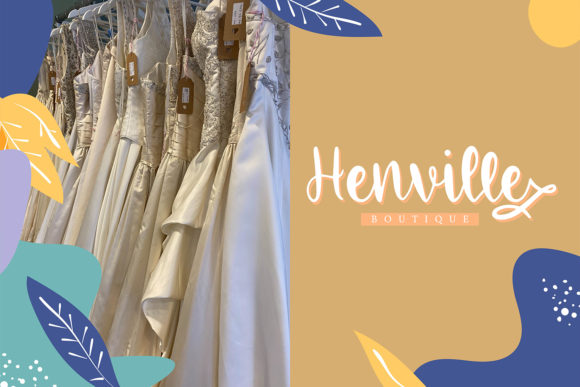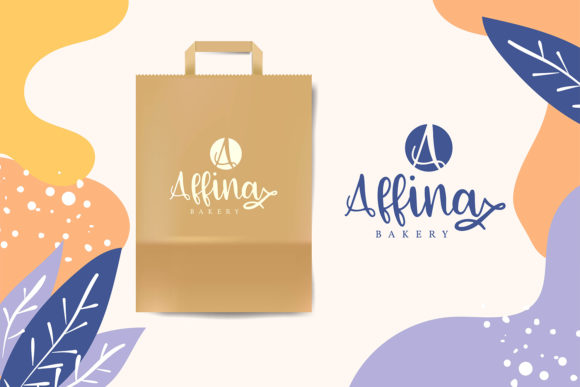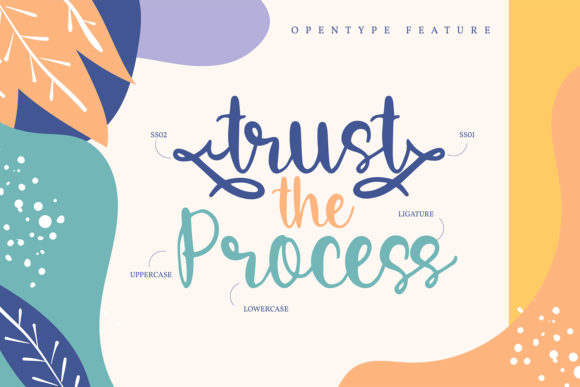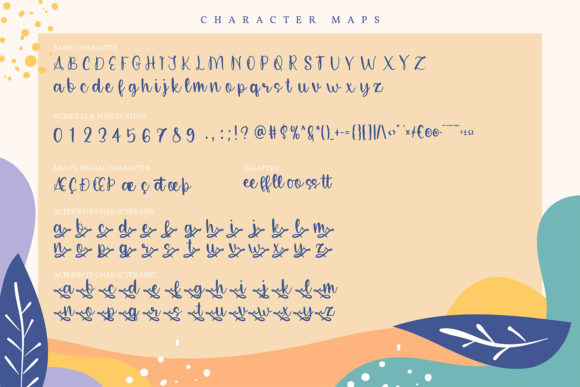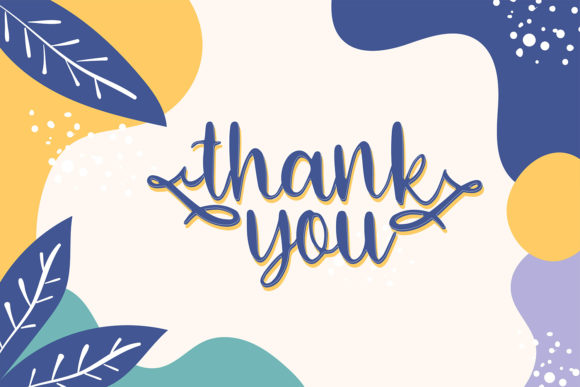
Introduction to Quinzella Font
Have you ever been working on a creative project, pouring your heart and soul into every detail, only to realize that the perfect font is missing? That’s where the Quinzella Font comes in – a beautiful, elegant handwritten font that adds a touch of personality to any design.
As a valuable resource for designers, the Quinzella Font offers a high-quality solution for those seeking a unique and eye-catching style. Whether you’re working on a wedding invitation, a thank you card, or a logo, this font is sure to impress. Its PUA encoded feature allows for seamless access to all glyphs and swashes, making it a breeze to use.
What sets the Quinzella Font apart is its versatility and ease of use. With a transparent background, it’s perfect for layered designs, and its free download option makes it an accessible resource for designers of all levels.
Key Features of Quinzella Font
- Unique, eye-catching style perfect for making a statement in designs
Honest Review: Quinzella Font
I recently had the chance to work with the Quinzella Font, and I must say it’s been a game-changer for my creative projects. The high-quality design and versatile style make it an excellent addition to any design resource.
Here are some things that I love about the Quinzella Font: ✨
- Transparency – The transparent background makes it easy to work with, especially when I need to layer it over other design elements.
- Flexibility – The font is incredibly versatile and can be used for a wide range of creative projects, from branding to digital art.
While the Quinzella Font is excellent in many ways, there are a few limitations: ⚠️
- Limited Character Set – The font doesn’t come with a comprehensive character set, which can be a problem if you need to work with non-English languages.
- Lack of Customization Options – While the font looks great out of the box, I wish there were more customization options available.
Overall, I’m impressed with the Quinzella Font and would highly recommend it to anyone looking for a high-quality design resource. With a little creativity and workarounds for its limitations, it can be a valuable addition to any designer’s toolkit.
Quinzella Font
The Quinzella Font is a versatile design resource that can be used in a variety of creative projects, including social media graphics, blog posts, and presentations. Its high quality and transparent background make it an ideal choice for designers who want to create visually appealing and professional-looking designs.
To get the most out of the Quinzella Font, be sure to use it in conjunction with other high-quality design resources, such as images and graphics. You can also experiment with different font sizes and styles to add visual interest to your designs. Additionally, consider using the Quinzella Font in combination with other design elements, such as shapes and icons, to create a cohesive and visually appealing design.